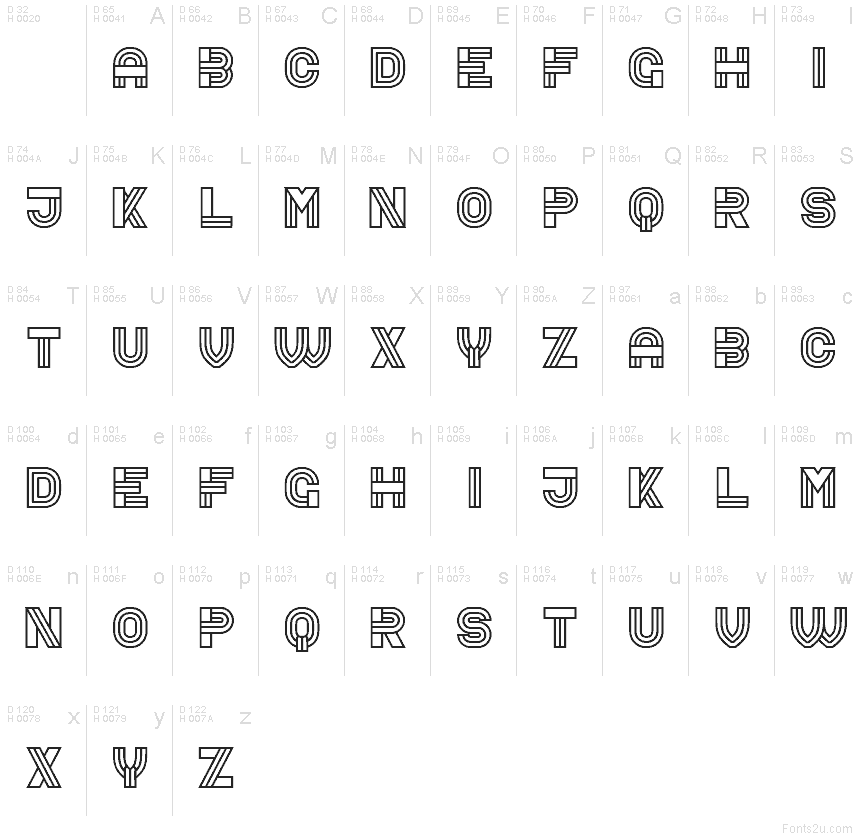
Bathroom Hollow Forma Regular
Bathroom Hollow Forma font by Vladimir Nikolic is a free decorative display font that turns every word into a neon-style maze. Its letters are built from bold, tubular outlines with crisp inner gaps, creating a striking “hollow” effect that feels both architectural and playful. The rhythm of the double and triple lines adds movement, so even short titles look lively and engineered rather than flat.
Using Bathroom Hollow Forma, your compositions instantly gain a retro signage vibe that shines on event posters, club flyers, game titles, packaging, branding for lifestyle products, and bold social graphics. This free font loves large sizes where its intricate paths stay sharp and readable; pair it with a simple geometric sans for body text to keep the focus on its sculpted, outline-heavy forms.